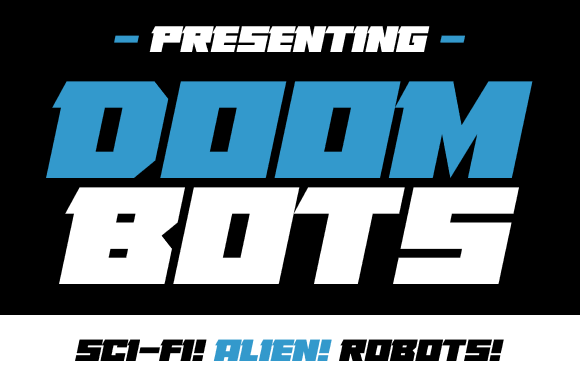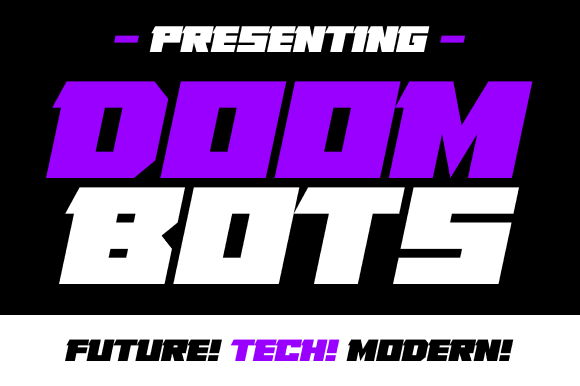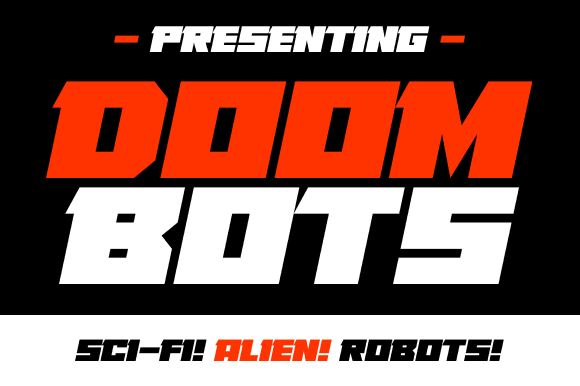
Introducing Doombots Font: The Ultimate Futuristic Typeface
Are you looking for a font that screams futuristic style and edgy sophistication? Look no further than Doombots Font, an ultrabold, chunky, and sleek typeface perfect for designers and crafters working on projects that require a modern, high-tech aesthetic.
What is Doombots Font?
Doombots Font is a carefully crafted typeface designed to evoke the feeling of a futuristic, high-tech world. Its ultrabold and chunky design makes it perfect for headlines, titles, and statements that require a strong, attention-grabbing presence. The font’s edgy style is reminiscent of sci-fi movies, robot invasions, and alien encounters, making it an ideal choice for projects that require a sense of otherworldliness.
Key Features of Doombots Font
- Ultrabold and Chunky Design: Doombots Font features a bold and chunky design that commands attention and makes a statement.
- Edgy and Futuristic Style: The font’s edgy style is perfect for projects that require a sense of modernity and futurism.
- High-Tech Aesthetic: Doombots Font is designed to evoke the feeling of high-tech features, making it perfect for projects that require a sense of innovation and cutting-edge style.
- Perfect for Music Themes: The font’s futuristic style makes it an ideal choice for modern music themes, including electronic, techno, and experimental music.
Use Cases for Doombots Font
Doombots Font is a versatile typeface that can be used in a variety of projects, including:
- Alien Encounters and Sci-Fi Projects: The font’s edgy and futuristic style makes it perfect for projects that require a sense of otherworldliness.
- Robot Invasions and Cyberpunk Themes: Doombots Font is designed to evoke the feeling of a futuristic world, making it perfect for robot invasions and cyberpunk themes.
- High-Tech Features and Gadgets: The font’s high-tech aesthetic makes it perfect for projects that require a sense of innovation and cutting-edge style.
- Modern Music Themes: Doombots Font is an ideal choice for modern music themes, including electronic, techno, and experimental music.
Why Choose Doombots Font?
There are many fonts available that claim to offer a futuristic style, but Doombots Font stands out from the crowd. Here are just a few reasons why:
- Unique and Exclusive Design: Doombots Font features a unique and exclusive design that sets it apart from other fonts.
- High-Quality and Readable: The font is designed to be high-quality and readable, making it perfect for use in a variety of projects.
- Easy to Use and Customize: Doombots Font is easy to use and customize, making it perfect for designers and crafters of all skill levels.
In conclusion, Doombots Font is the ultimate futuristic typeface for designers and crafters working on projects that require a modern, high-tech aesthetic. Its ultrabold, chunky, and edgy design makes it perfect for headlines, titles, and statements that require a strong, attention-grabbing presence. Whether you’re working on a sci-fi project, a robot invasion theme, or a modern music project, Doombots Font is the perfect choice.